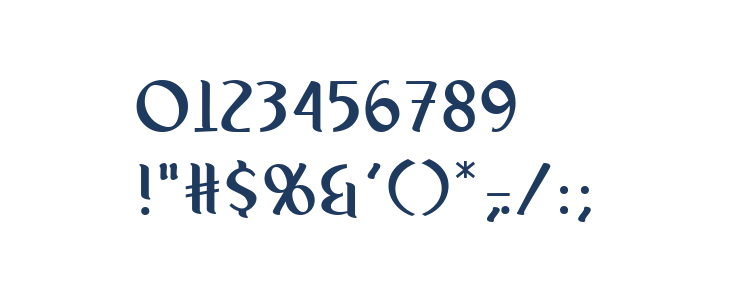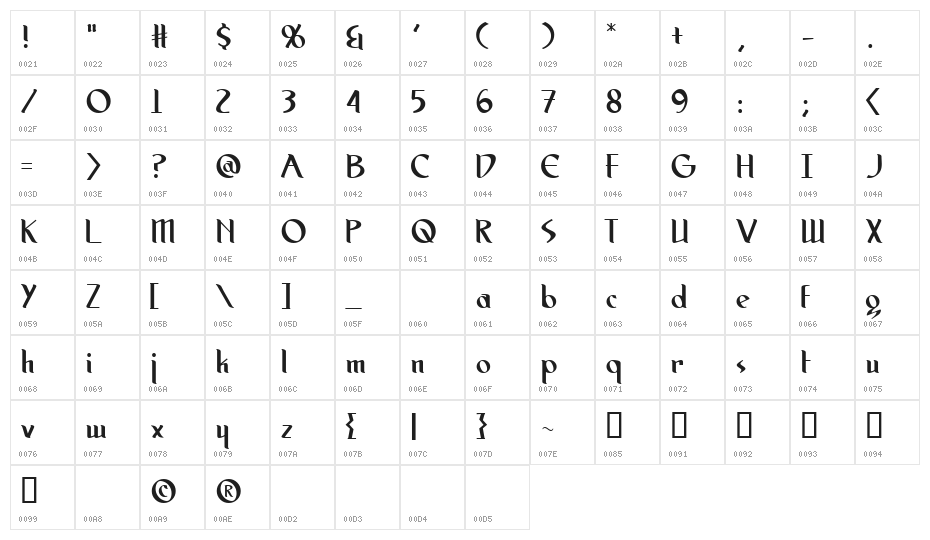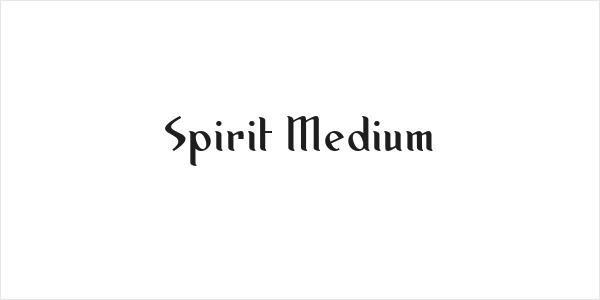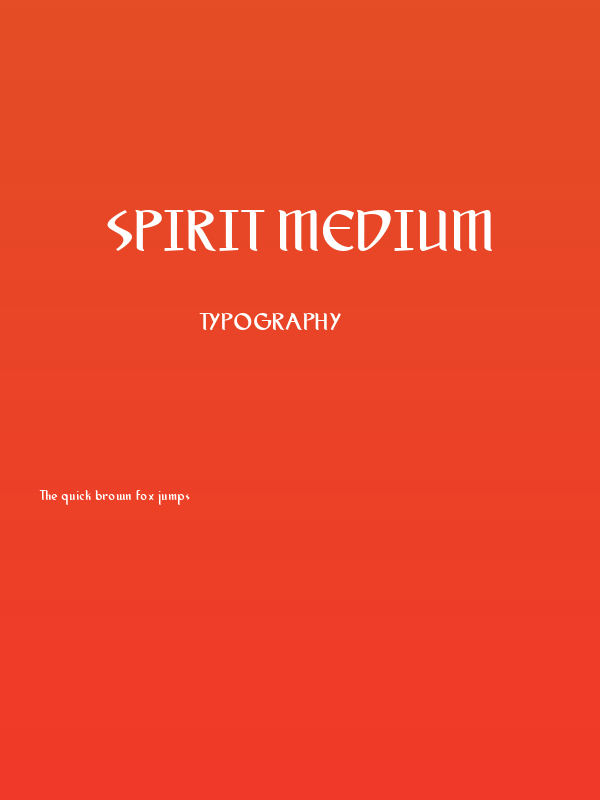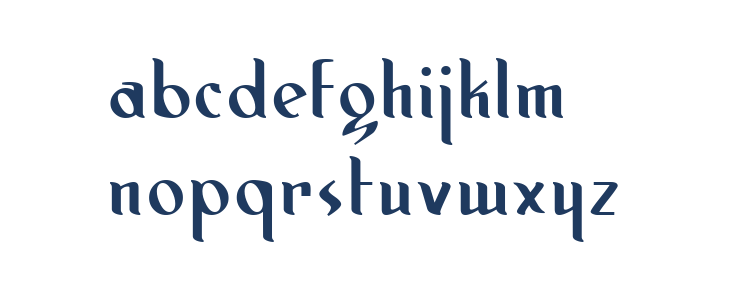
Spirit Medium Font
Spirit Medium Description
This font features a unique blend of modern and classic elements, characterized by its distinctively sharp and angular serifs. The uppercase letters exhibit a strong presence with their bold strokes and slightly condensed forms, while the lowercase letters maintain a consistent style with a touch of elegance. The numerals are well-proportioned, ensuring readability and balance. Special characters are crafted with attention to detail, adding to the font's versatility. Overall, this typeface exudes a sense of sophistication and creativity, making it suitable for a variety of design applications.
| Use Case | Headlines, Logos, Editorial design |
| Proposed Projects | Ideal for branding, editorial design, book covers, and creative projects that require a touch of elegance. |